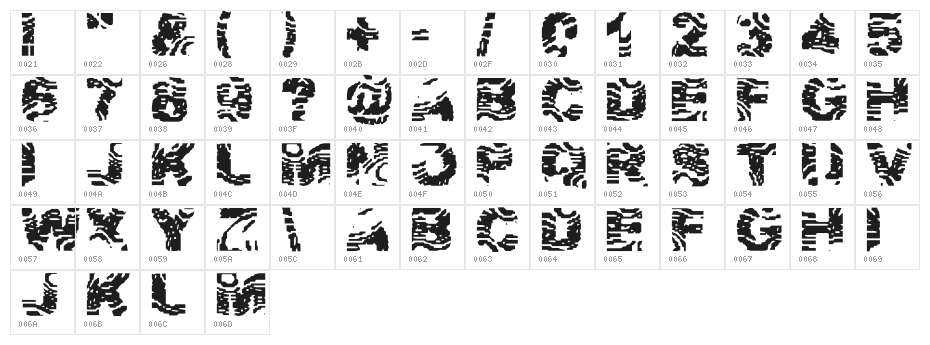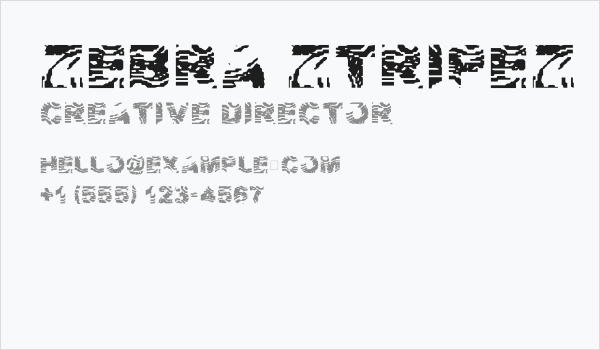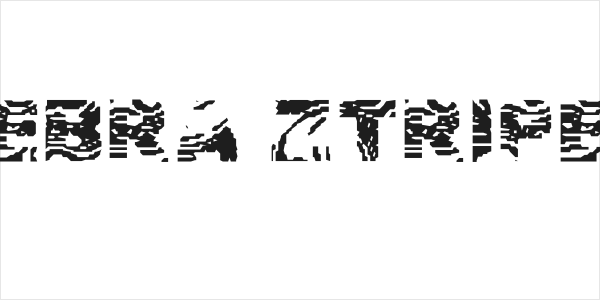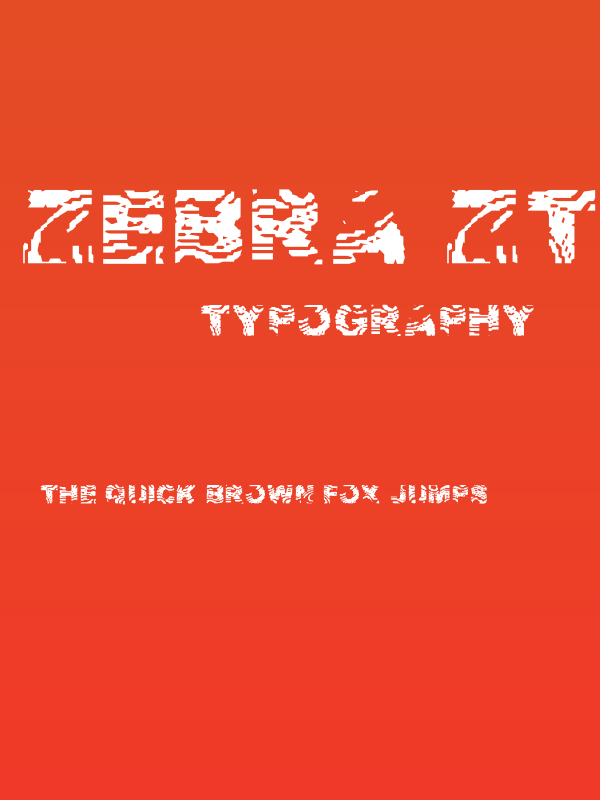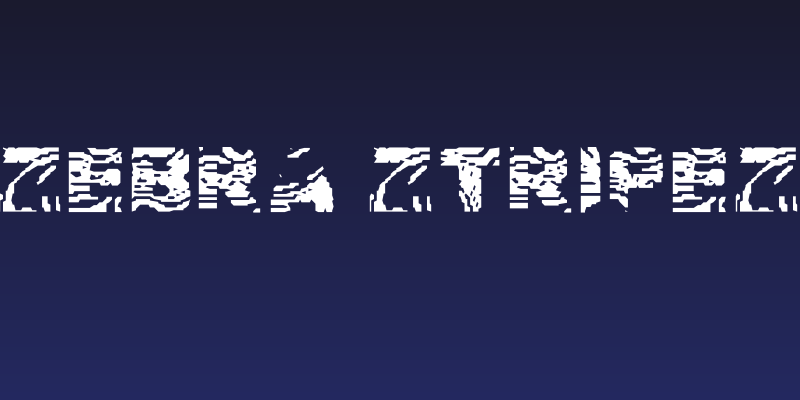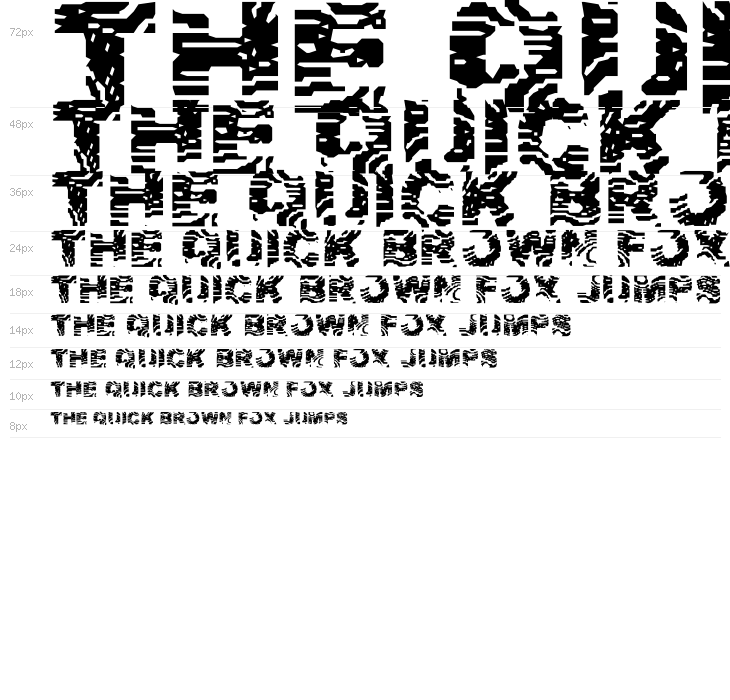
Zebra Ztripez Font
Zebra Ztripez Description
This font features a unique and eye-catching design with a zebra stripe pattern integrated into each character. The bold and decorative style makes it stand out, with each letter and number having a distinct striped texture that mimics the appearance of zebra skin. The uppercase and lowercase letters maintain a consistent pattern, creating a cohesive look across the entire alphabet. The numbers and special characters follow the same design principle, ensuring uniformity. This font is perfect for projects that require a bold statement or a playful, wild theme.
| Proposed Projects | Ideal for branding, posters, event invitations, and any design needing a bold, animal-themed aesthetic. |